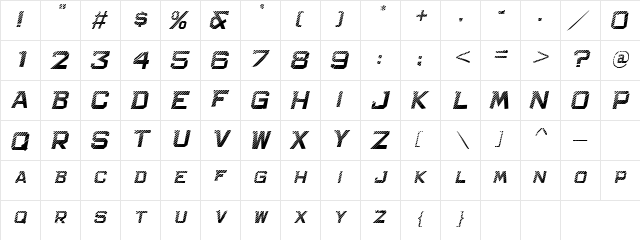
Bachelor Pad Wood JL Italic
Design Context for Bachelor Pad Wood JL Typeface
Bachelor Pad Wood JL taps into classic Western woodtype traditions — bold, characterful, and impossible to ignore. The slanted form adds forward momentum and visual energy.
Perfect for barbecue restaurants, country music branding, vintage poster design, and rustic packaging.
Font Pairing: Combine Bachelor Pad Wood JL with a simple slab or neutral sans — period-accurate companions reinforce the vintage feel without competing for attention.
Pro Tip: Pair Bachelor Pad Wood JL with aged textures or distressed backgrounds to amplify its vintage personality.